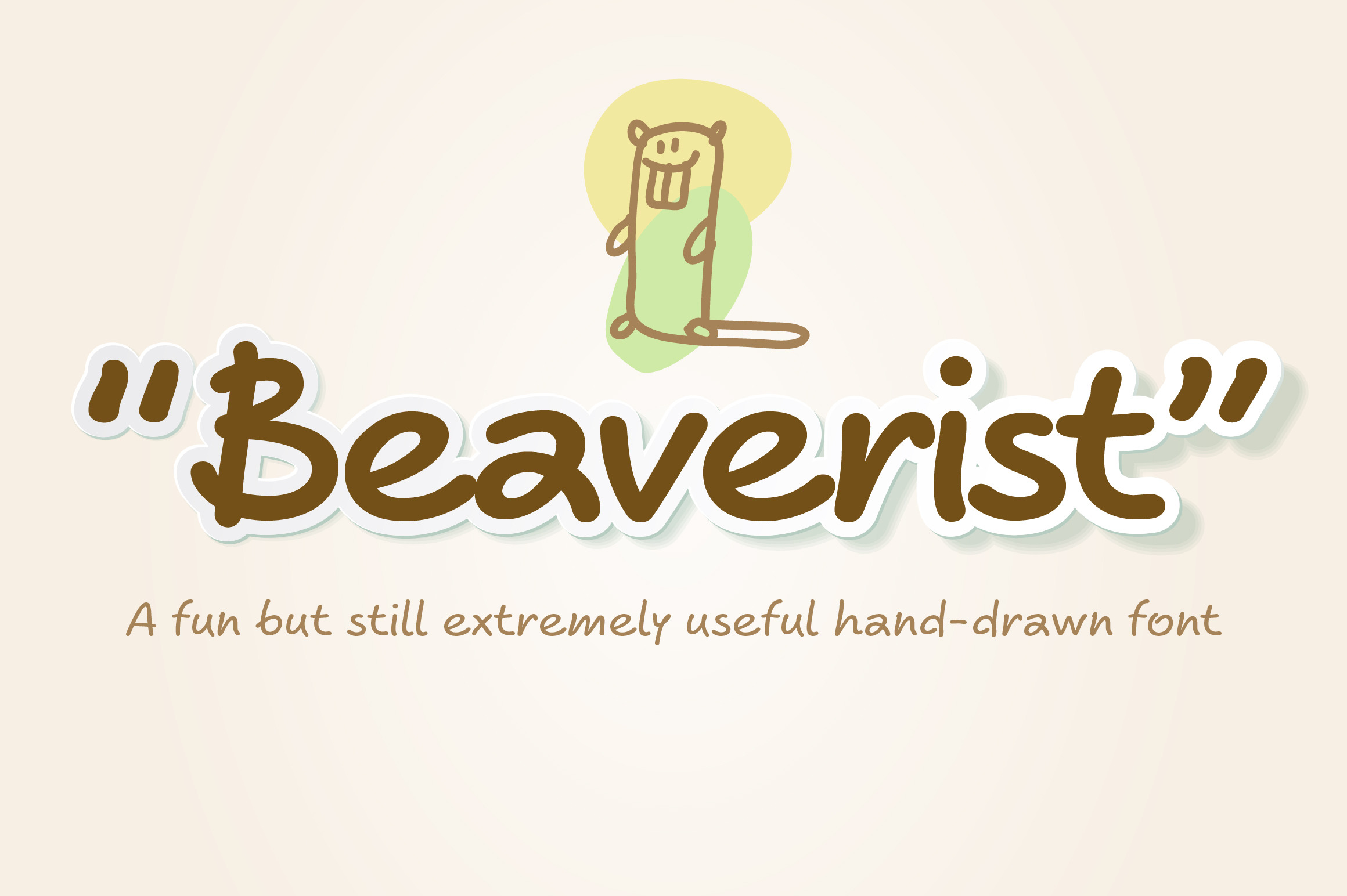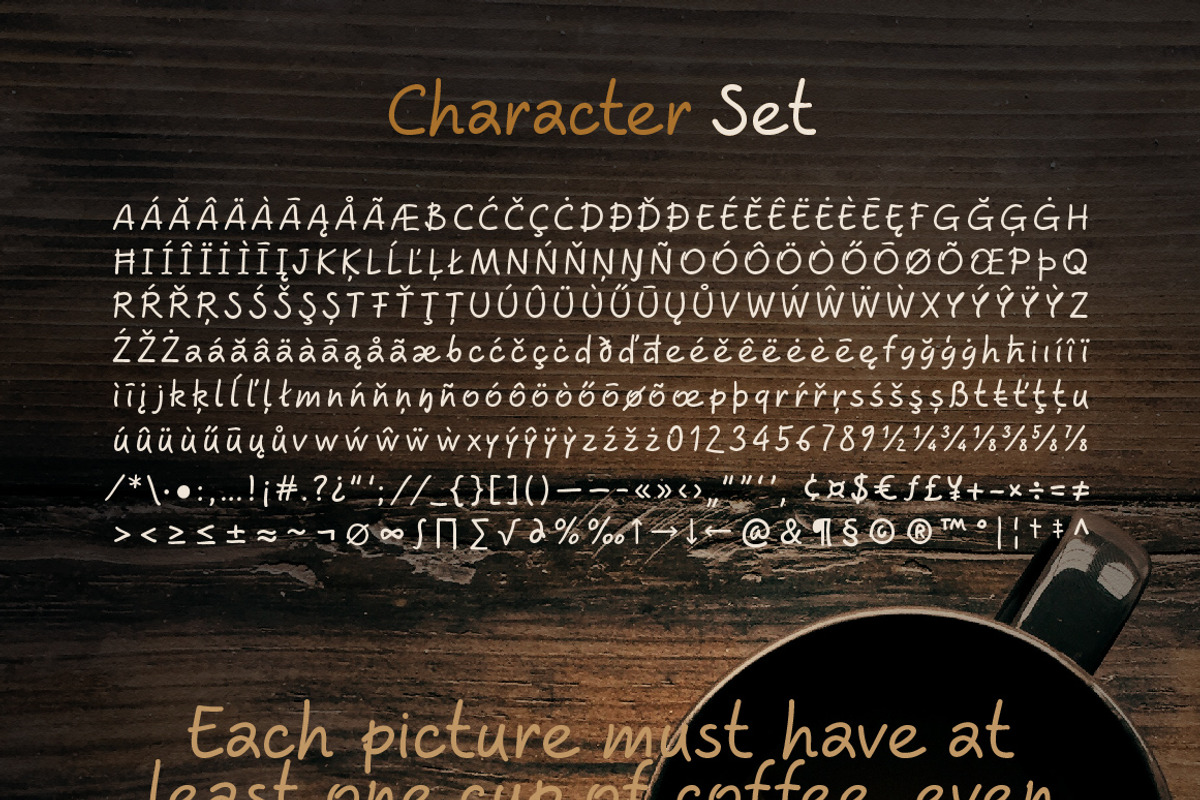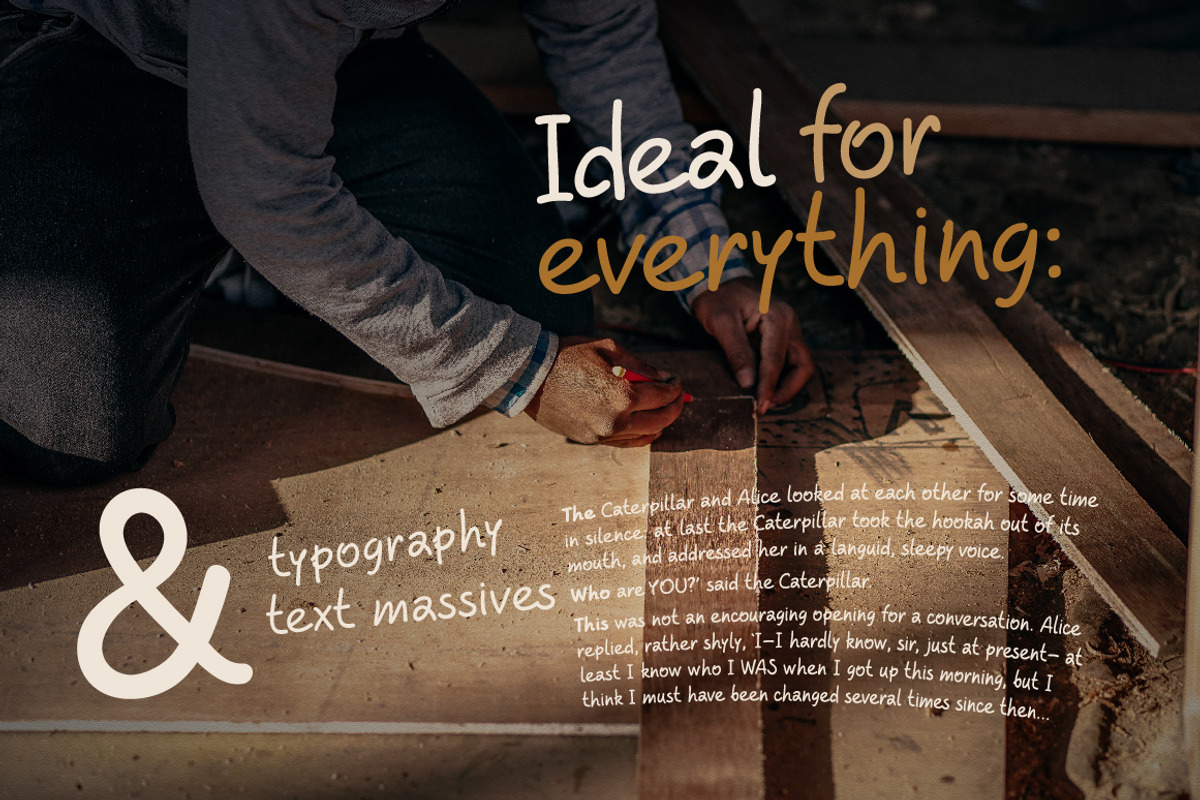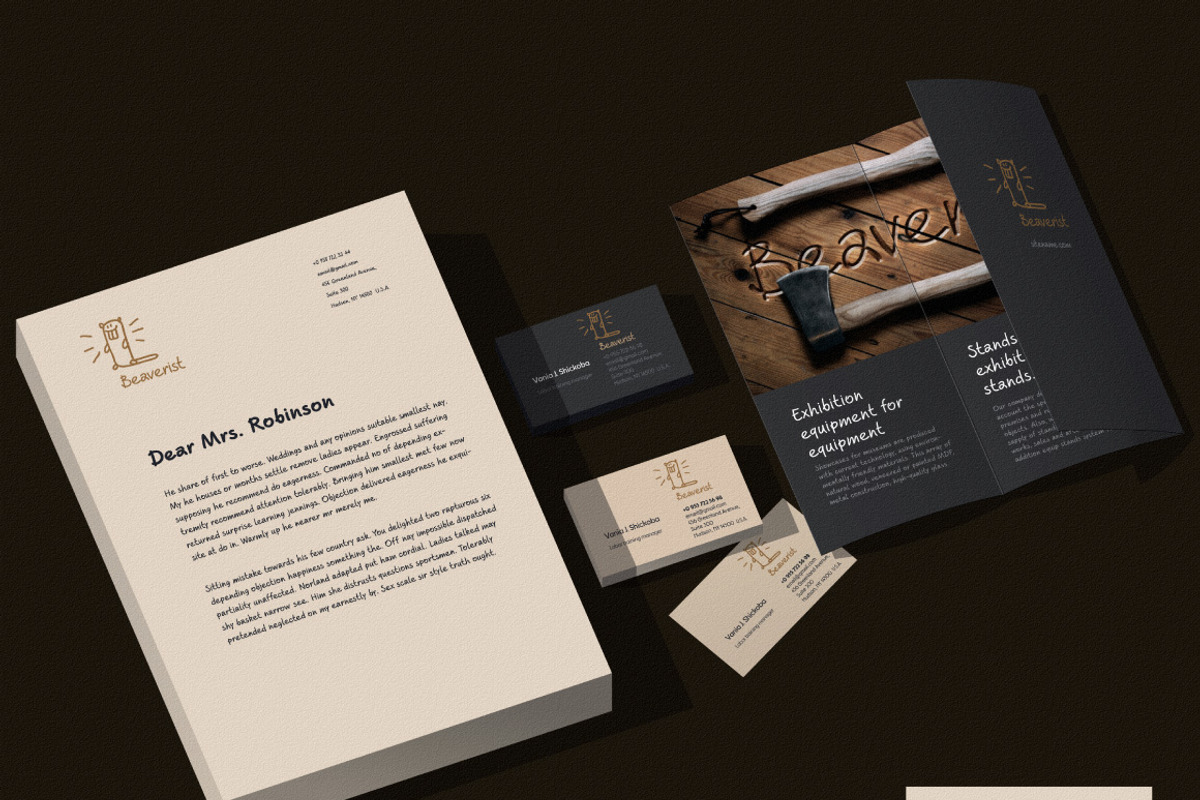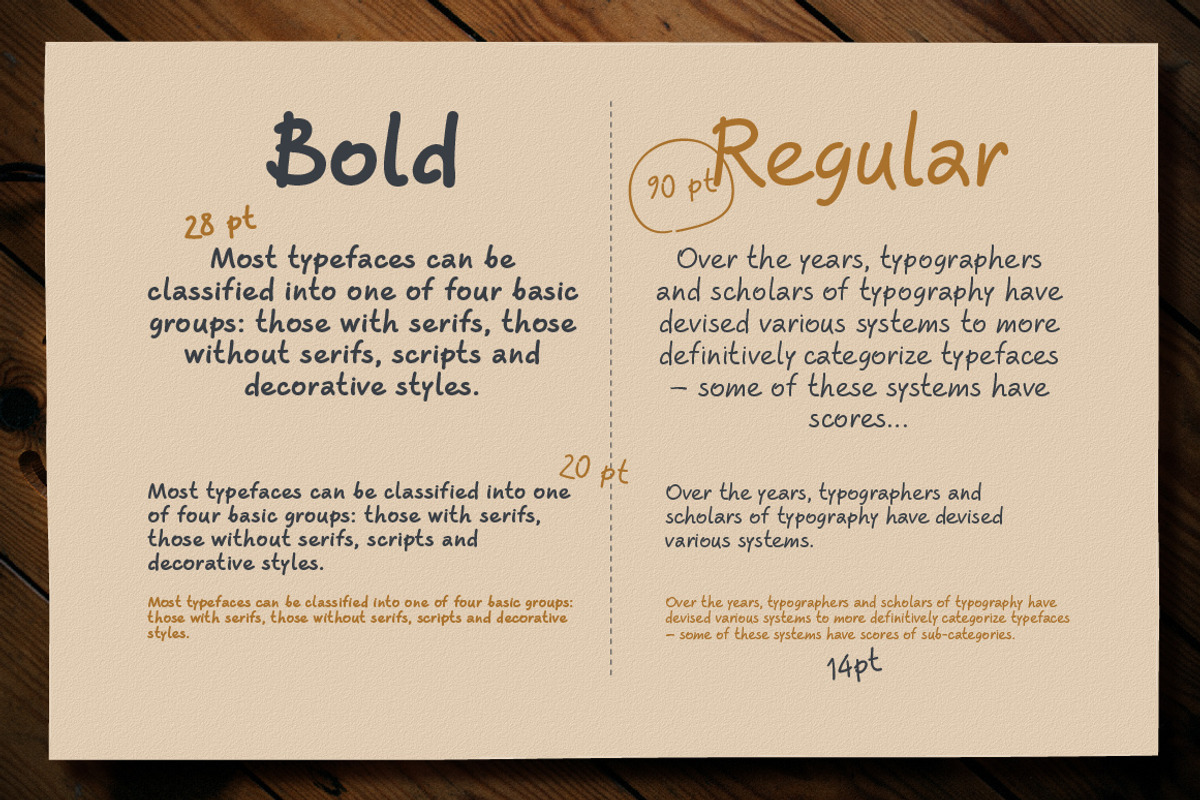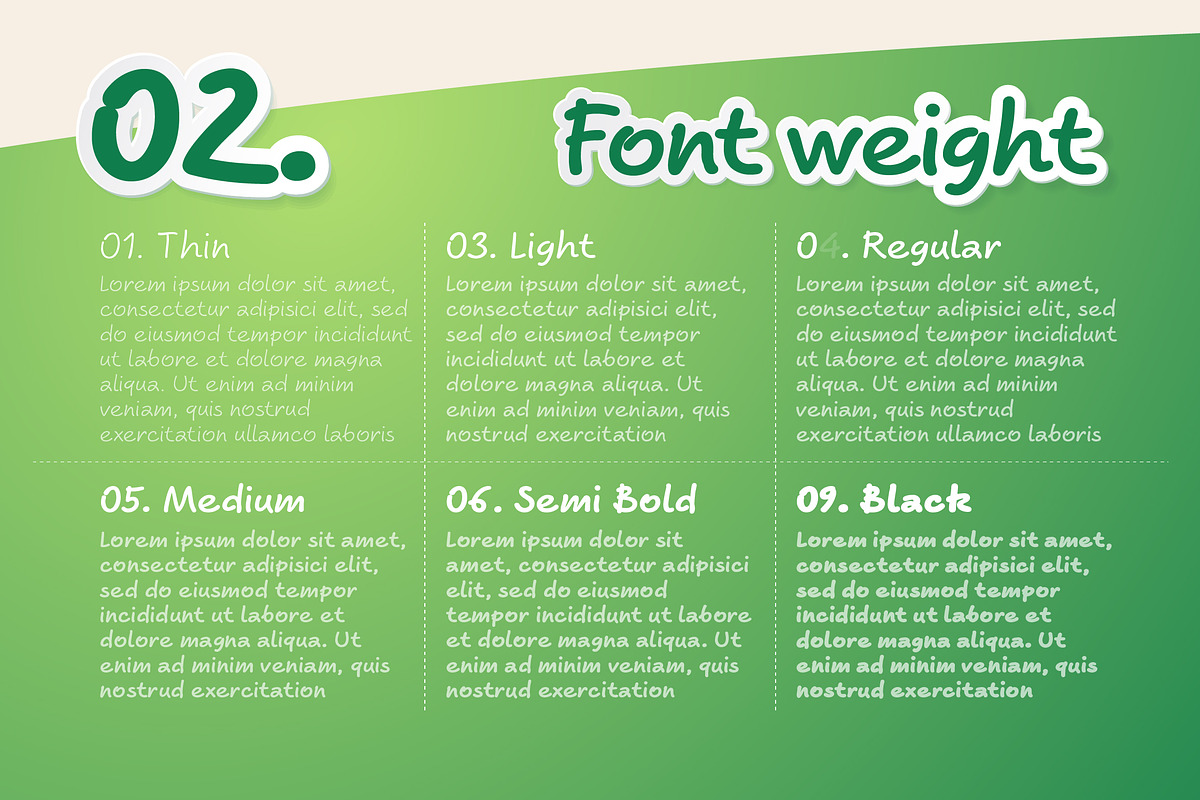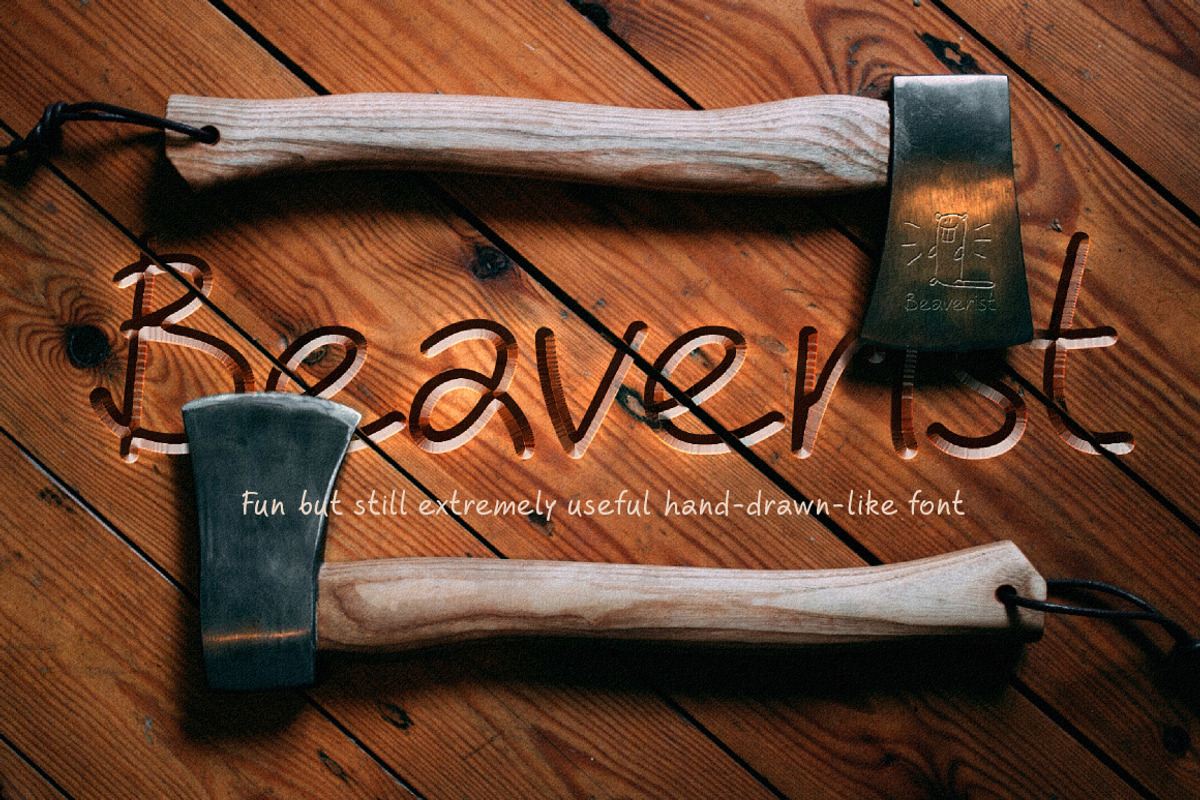
Hand drawn script font. Beaverist
The Beaverist is cute hand-drawn font which are the most necessary in casual daily life.
The Beaverist belongs to the group of handwritten fonts and is inspired by the culture of small and cute villages located far from big cities, almost as a part of nature. Beaverist does not have the pompousness of calligraphic fonts, but it has the warmth and softness of natural forms that we rarely meet in our hectic life. So if you want a simple and easy-to-read handwritten font, don't hesitate, Beaverist is your choice.
Supports Latin alphabets:
— Basic
— Western European
— South Eastern European
— Central European
It has a casual look but without being too informal, and is good for recipes, scrapbooking, greeting cards, or wherever a handmade touch is needed.
The font contains 9 weights.